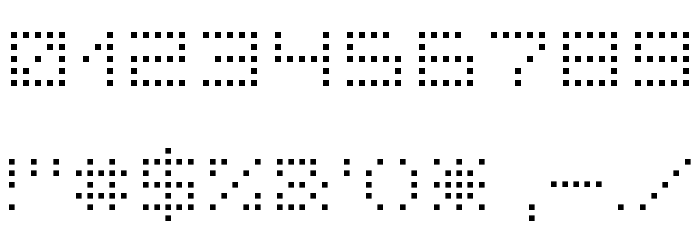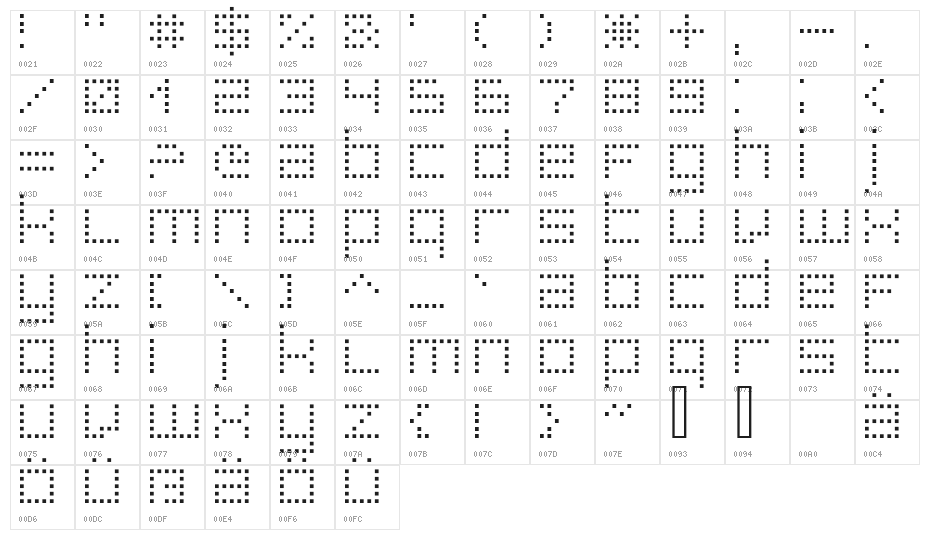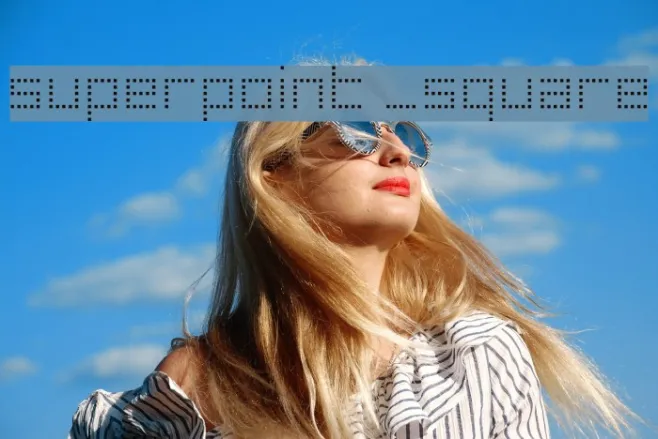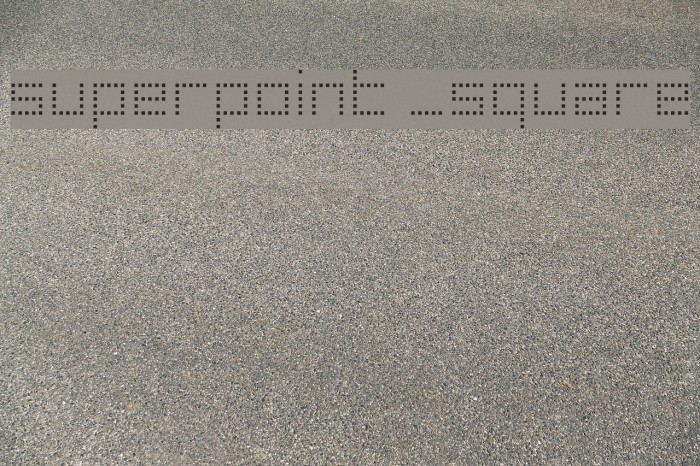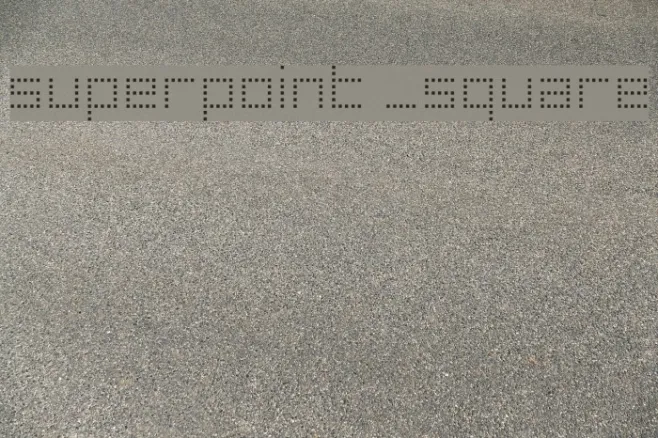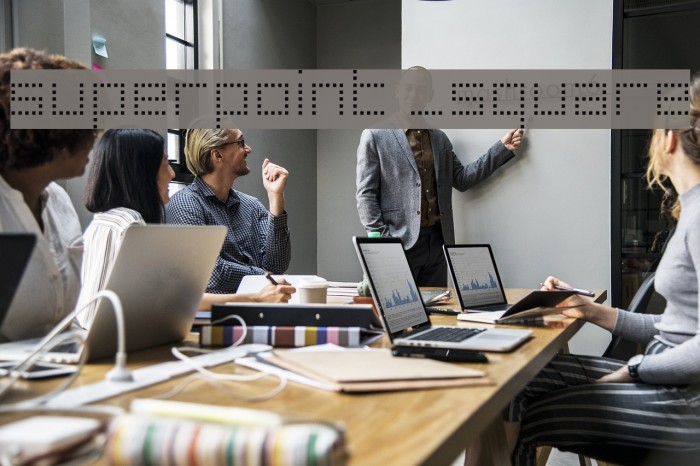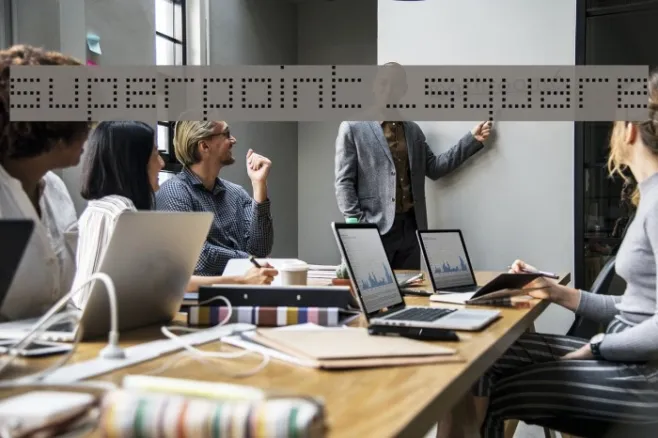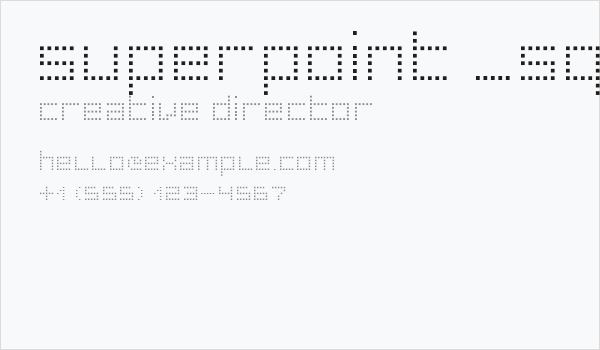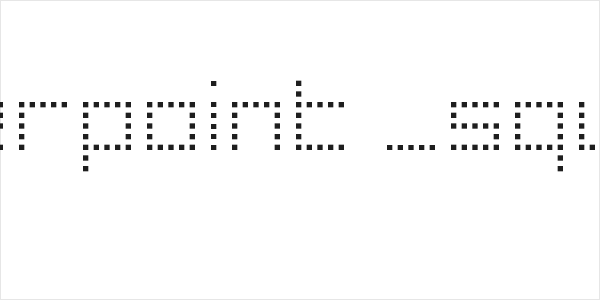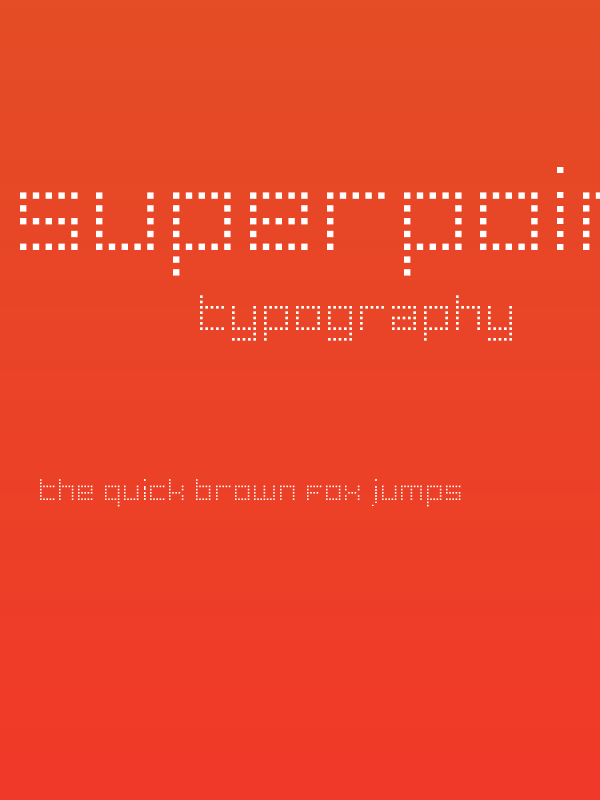
superpoint _square Font
superpoint _square Description
This font features a unique dotted design, where each character is formed by a series of evenly spaced dots. The style is highly geometric and structured, giving it a digital and modern appearance. The uniformity of the dots creates a consistent texture across all characters, making it visually appealing for digital displays. The font maintains a clear readability despite its unconventional form, with each letter and number distinctly recognizable. The spacing between the dots is consistent, contributing to a clean and organized look. This font is ideal for projects that require a futuristic or technological aesthetic.
| Proposed Projects | Ideal for digital displays, tech-themed designs, and futuristic branding. |